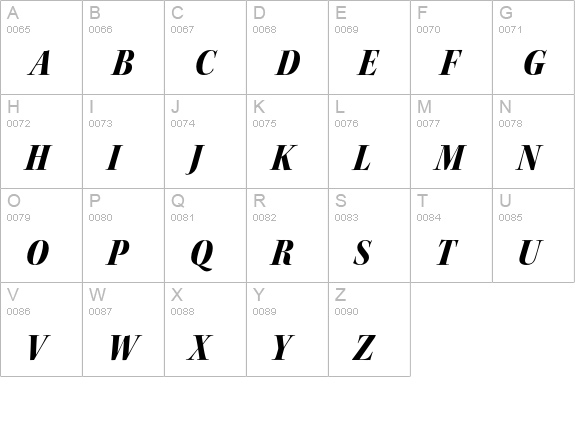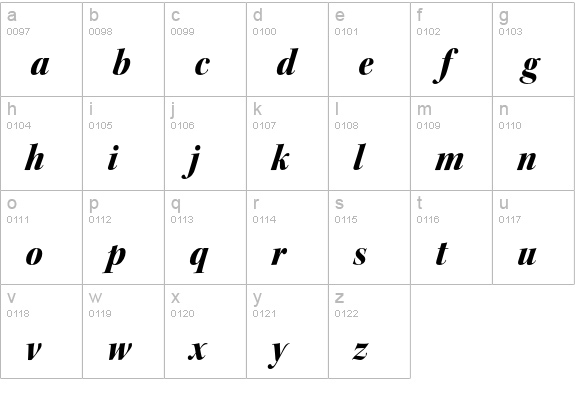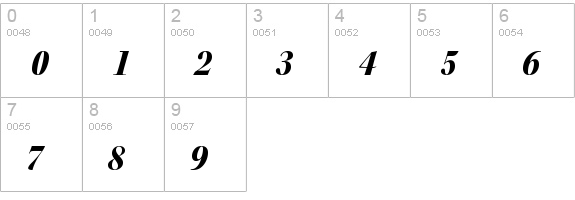
Kepler Std Black Semicondensed Italic Display Font Details
Kepler Std Black Semicondensed Italic Display is a maximum-weight, dramatic, italic variant in the Kepler typeface family \xE2\x80\x94 well suited to maximum-impact headlines, posters, and packaging.
The Kepler Std Black Semicondensed Italic Display font is a stunningly bold and elegant typeface that demands attention. Its sleek and modern design features a slight slant, adding a touch of dynamism to its already powerful presence. With its condensed form, this font is perfect for making a statement in headlines, titles, and other display purposes. The thick and striking strokes of the letters make each character stand out, creating a visually captivating effect. This font exudes confidence and sophistication, making it an excellent choice for high-impact designs. Its versatility allows it to be used in a wide range of creative projects, from branding and advertising to editorial layouts and web design. One of the best things about the Kepler Std Black Semicondensed Italic Display font is that it is freely available to download at FontsMarket.com. This means that you can easily access this remarkable typeface and incorporate it into your designs without any cost. Whether you're a professional designer or someone looking to add a touch of elegance to their personal projects, the Kepler Std Black Semicondensed Italic Display font is a must-have. Its bold and captivating design, combined with its availability for free, makes it an irresistible choice for any creative endeavor.